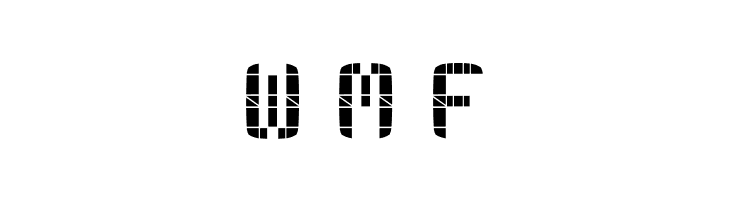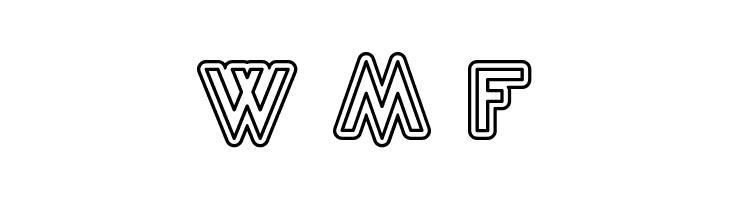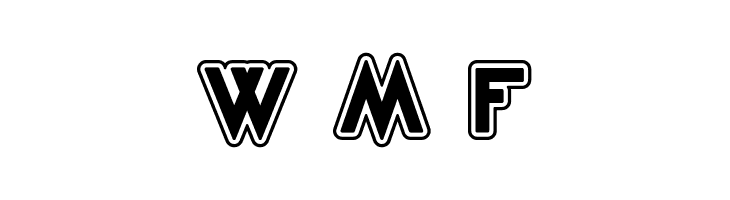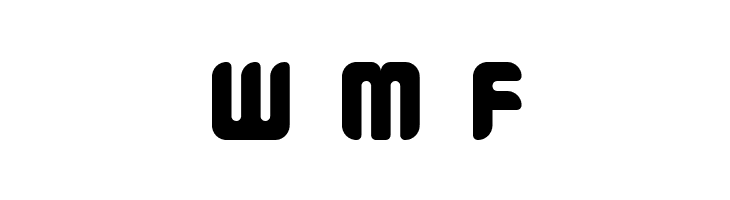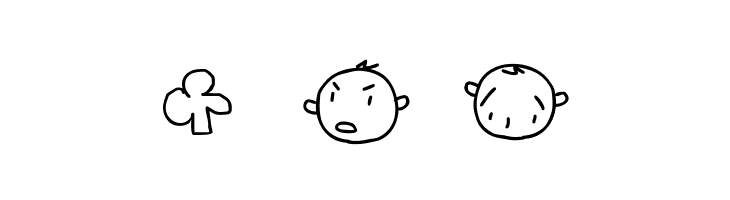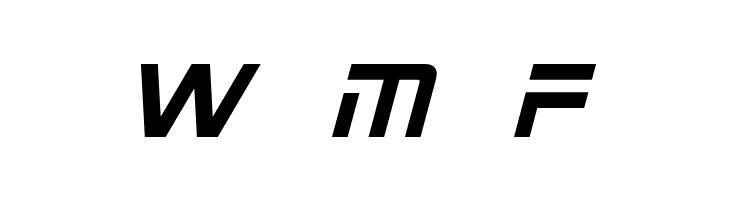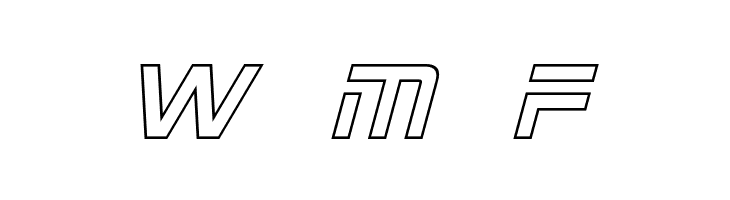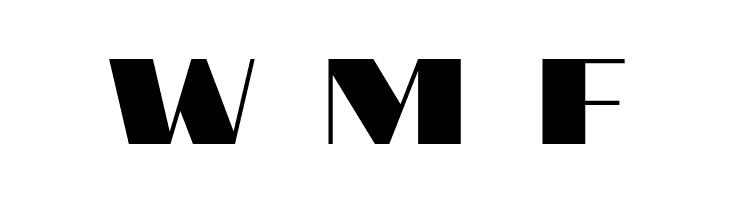
• 2015 Cruiser Hollow Italic
A modern, hollow italic font with a dynamic and futuristic style.
• 2015 Cruiser Italic
A modern, italicized font with a sleek, geometric design.
• 2016 Bugs
A bold, graffiti-inspired font with a hand-drawn, energetic style.
• 2020 Outline Fortune Kei
A bold, outlined font perfect for modern and eye-catching designs.
• 2020 Outline Kei
A bold, geometric outline font with a modern, dimensional style.
• 208
• 20db
A bold, high-contrast font with a modern and dynamic style.
• 20db
A bold, high-contrast font with a modern and dynamic style.
• 20faces
• 20SEVEN
A bold, geometric font with a segmented, digital appearance.